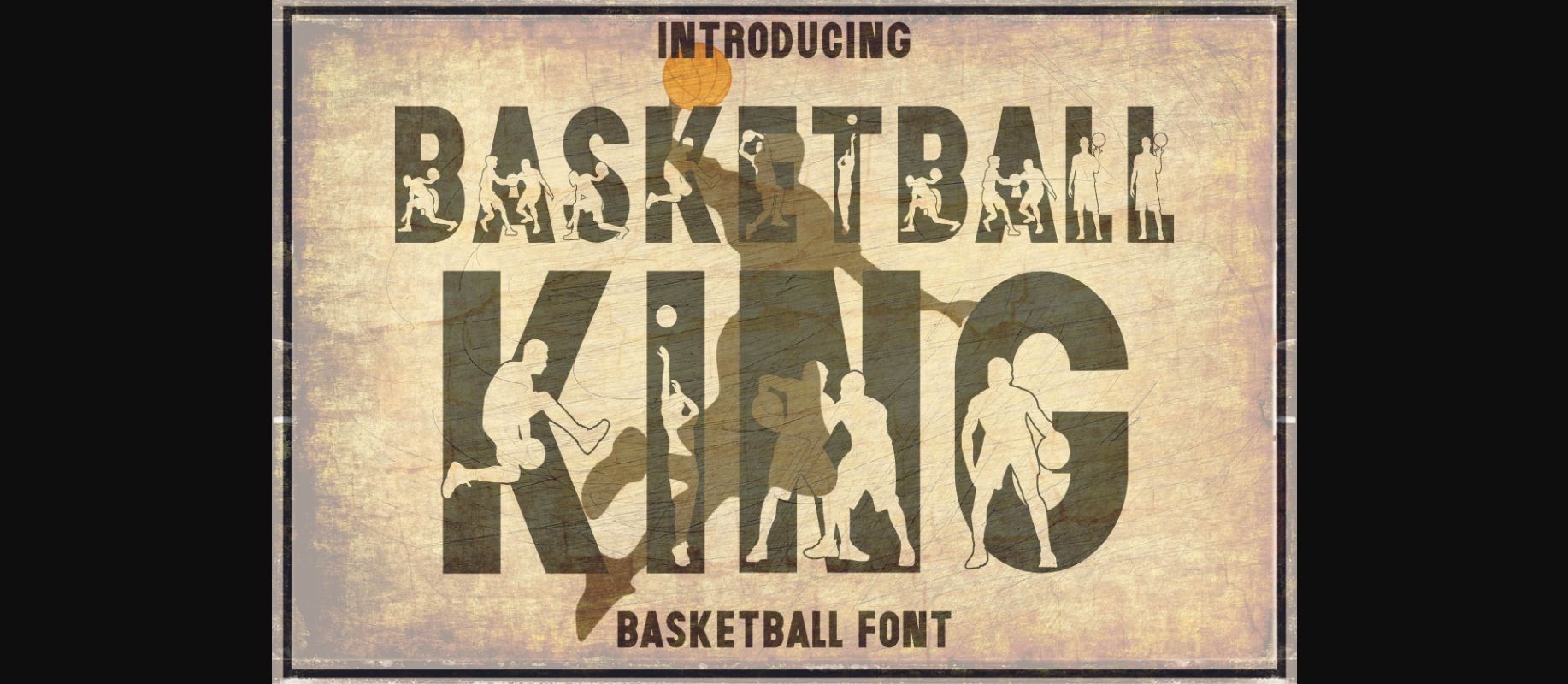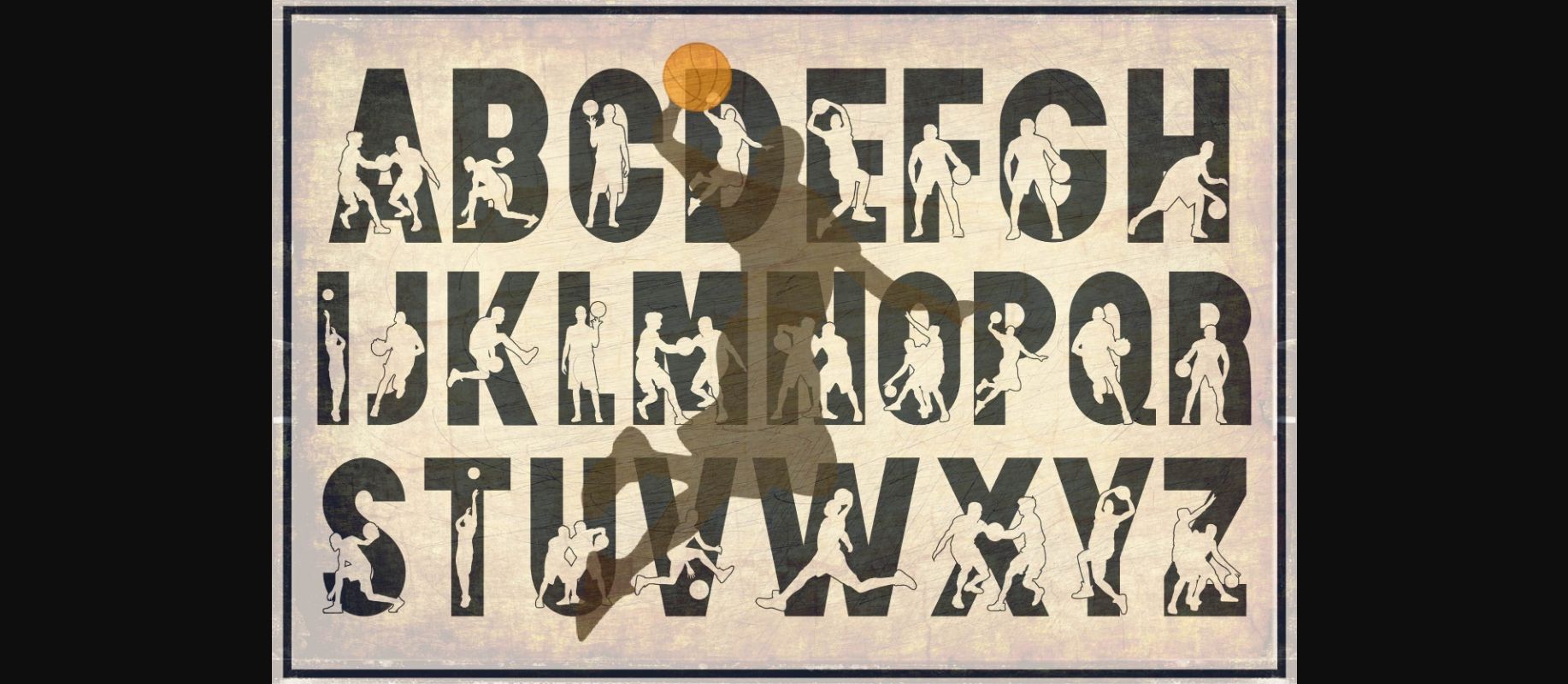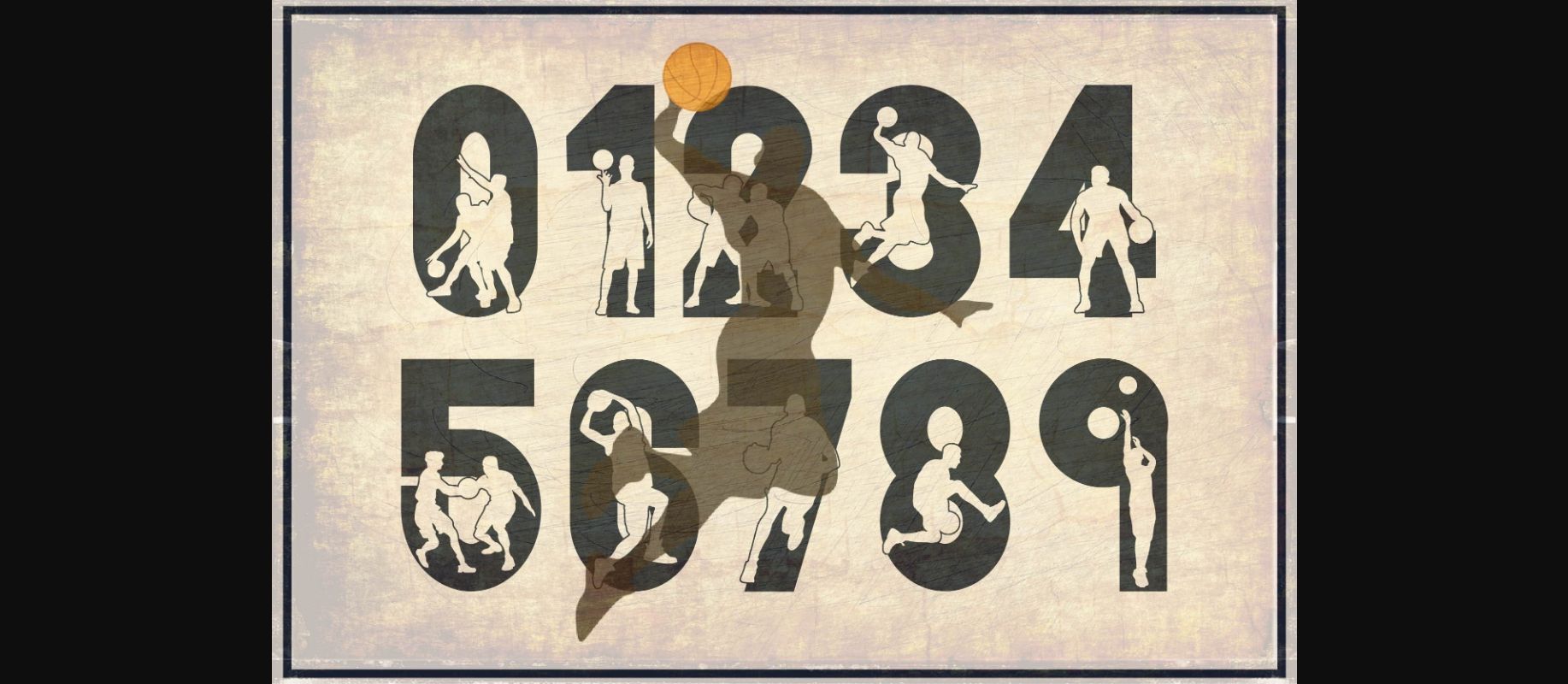
Basketball King Font
About Basketball King Font
Basketball King is a cool and original-looking decorative display font. It is suitable for logotype, headlines, corporate and brand identity, apparel industry, posters, movies, games, magazines, books, comics, cartoons, or any creative design projects.